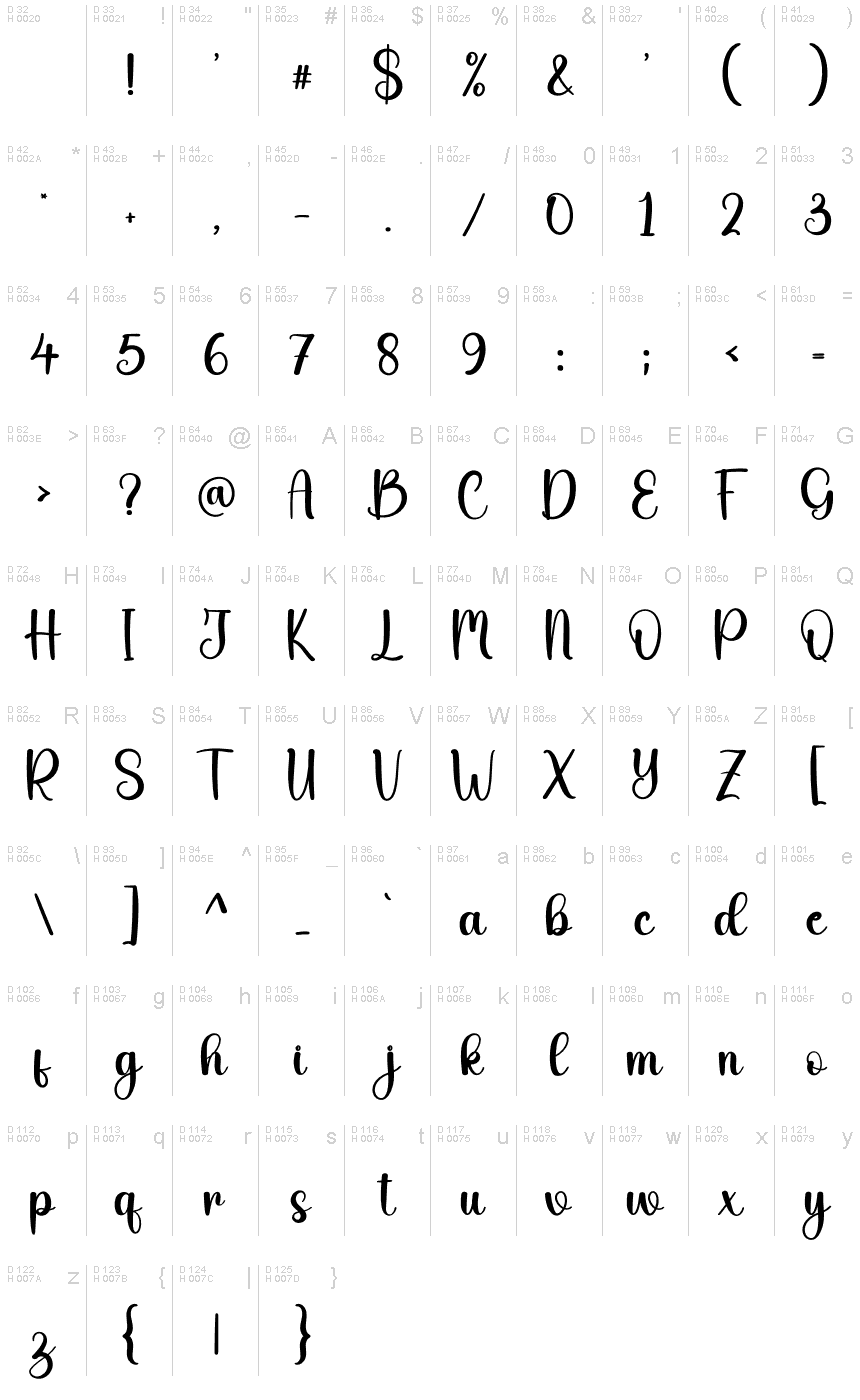
Ready
Ready, a stunningly crafted handwritten font by Harlek Studio, brings elegance and personality to any project.
Its graceful curves and delicate strokes exude a sense of sophistication, making it perfect for wedding invitations or luxury branding. With its versatile semi-bold weight, Ready is equally suitable for stylish blog headers or eye-catching packaging designs. The font's timeless appeal and exceptional legibility make it an ideal choice for book covers, creating an inviting reading experience.
Prepare to captivate your audience with the alluring charm of the Ready typeface.